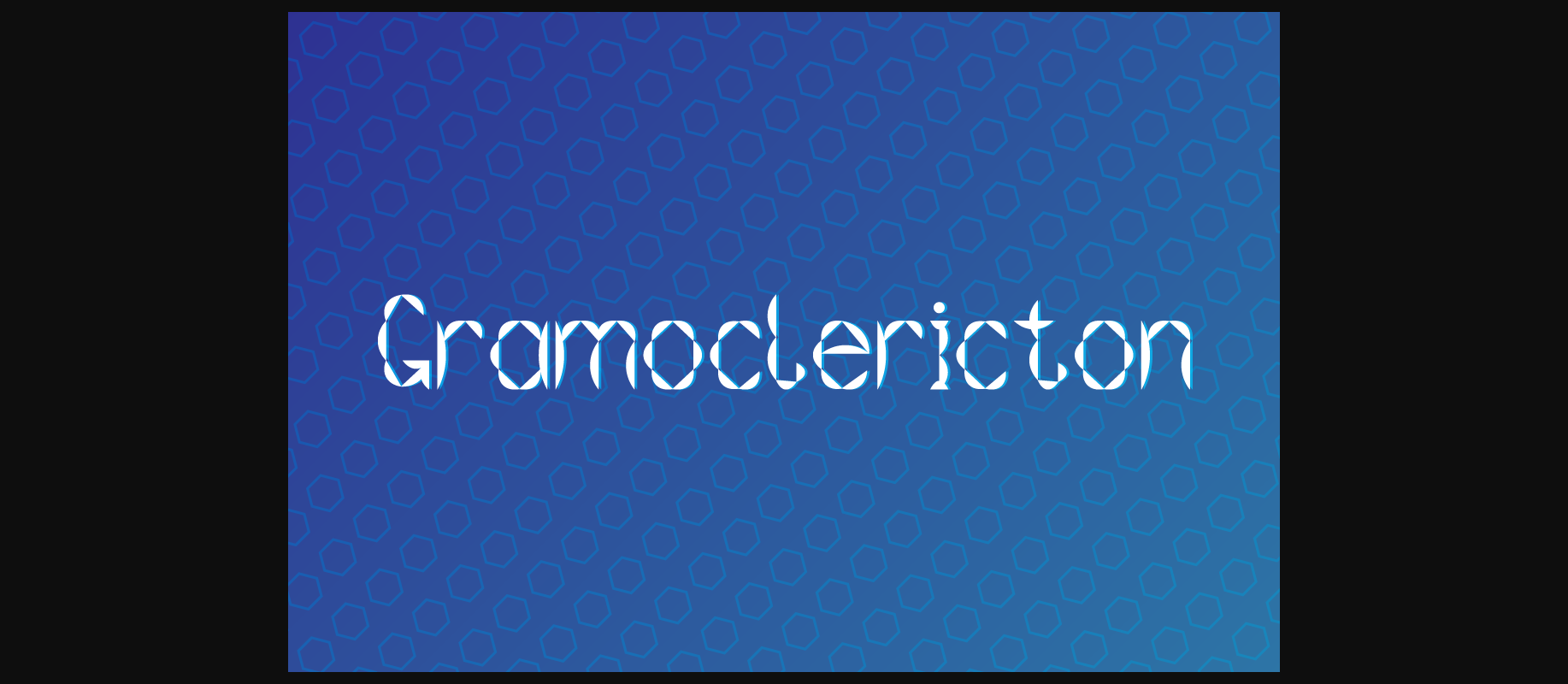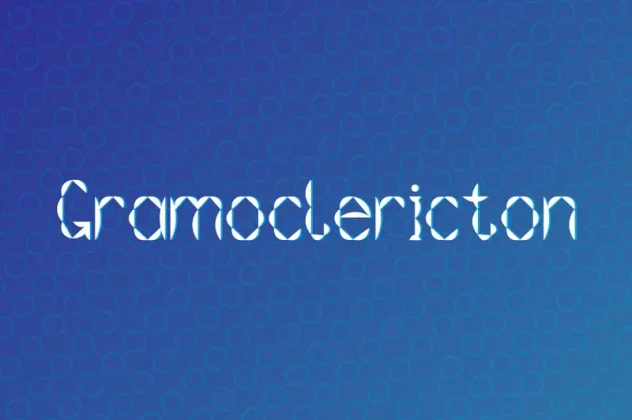
Gramoclericton Font
About Gramoclericton Font
Gramoclericton is a fun, decorative font with tons of friendly appeal. This font can be used for relaxed headers, or in a ton of creative projects.